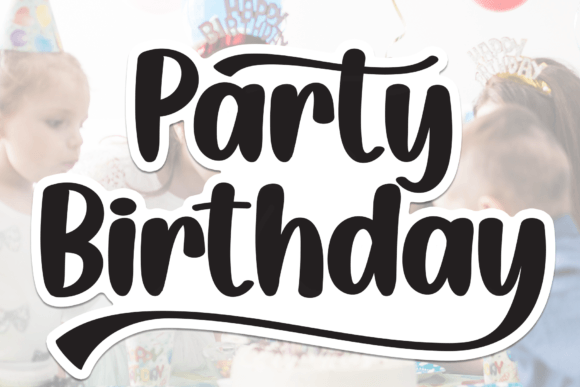
Behold Party Birthday Font! This exquisite, handwritten masterpiece is ready to transform your website designs with charm and sophistication. Crafted with utmost care by the talented andikastudio, Party Birthday merges the timeless allure of calligraphy with a modern, refreshing twist.
Immerse yourself in a world of elegance and creativity as you witness the graceful strokes of Party Birthday. Each letter is a work of art, lovingly shaped to embody the joy and vivacity of a birthday celebration. This script font oozes sophistication, elevating every project it graces with a touch of whimsical charm.
Unleash the boundless possibilities of Party Birthday. Its innate versatility makes it the perfect partner for a multitude of projects. Craft stunning logos that exude professionalism, design eye-catching social media posts guaranteed to turn heads, and create captivating digital invitations that leave a lasting impression. Let your imagination run wild as you bring your creative vision to life.
With Party Birthday, the boundaries of self-expression are infinite. Use it to add a touch of whimsy to your blog posts, capture the attention of your audience with captivating e-commerce designs, or compose heartwarming greeting cards that convey your heartfelt sentiments. The possibilities are endless.
Make Party Birthday your secret weapon in the quest for design excellence. Its user-friendly nature makes it accessible to both seasoned designers and those just starting their creative journey. Transform your projects from ordinary to extraordinary with a few simple clicks.
Party Birthday: Where artistry meets innovation. Elevate your projects to new heights and leave an indelible mark on your audience. Embrace the beauty of Party Birthday and watch your creative dreams come to life.